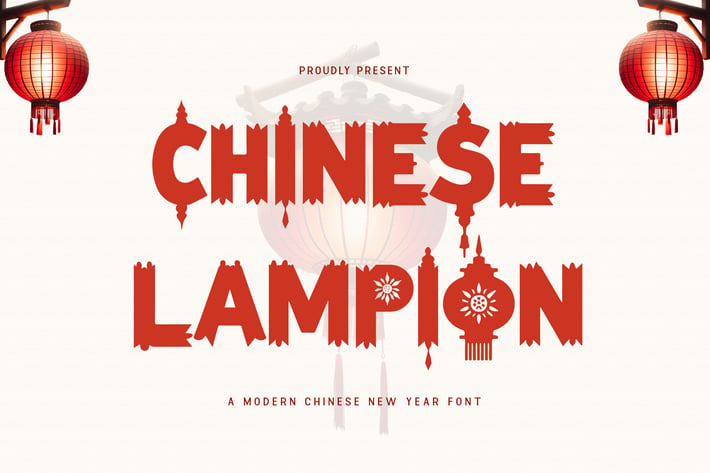
Chinese Lampion - A Modern Chinese New Year Font
Introducing Chinese Lampion, a modern font inspired by the enchanting beauty of Chinese lanterns. Perfect for Chinese New Year celebrations, this font captures the festive glow and vibrant energy of the Lunar New Year, making it ideal for creating invitations, event posters, branding, and promotional materials.
The rounded, lantern-inspired shapes of Chinese Lampion bring a warm, inviting feel to your designs. With its playful yet stylish curves, this font adds a touch of lightheartedness and festive cheer to your work. It’s perfect for designs that require an elegant yet fun aesthetic to celebrate the Chinese New Year in style.
Chinese Lampion is your go-to font for bringing festive light and celebration to your Chinese New Year creations.
Introducing Chinese Lampion, a modern font inspired by the enchanting beauty of Chinese lanterns. Perfect for Chinese New Year celebrations, this font captures the festive glow and vibrant energy of the Lunar New Year, making it ideal for creating invitations, event posters, branding, and promotional materials.
The rounded, lantern-inspired shapes of Chinese Lampion bring a warm, inviting feel to your designs. With its playful yet stylish curves, this font adds a touch of lightheartedness and festive cheer to your work. It’s perfect for designs that require an elegant yet fun aesthetic to celebrate the Chinese New Year in style.
Chinese Lampion is your go-to font for bringing festive light and celebration to your Chinese New Year creations.